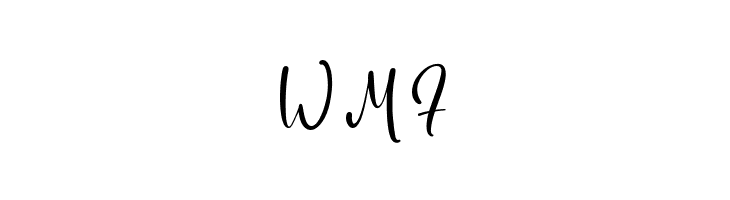
• Adonay
A modern, geometric font with clean lines and a futuristic aesthetic.
• Adonay
A modern, geometric font with clean lines and rounded edges.
• Adonessia Demo
An elegant, flowing script font with intricate loops and high contrast.
• Adonis-Bold
A bold, angular font with geometric shapes and a dynamic style.
• AdonisGreekSquares
A bold, geometric font with Greek-inspired, angular characters enclosed in squares.
• Adopted Regular
A bold, three-dimensional font with a gradient fill and sharp edges.
• Adora Chalie Regular
A bold, playful handwritten font with smooth curves and a dynamic slant.
• Adora Queen Personal Use
An elegant script font with high contrast and ornate flourishes.
• Adorable
A playful, bold font with rounded characters and a whimsical style.
• Adorable Kids
A playful, bold font with a hand-drawn, whimsical style.
• Adorable Kids
A playful, bold, and hand-drawn font with a childlike charm.
• Adorable Margherita Script
A graceful and sophisticated script font with flowing, interconnected letters.
• Adorable Mumble
A playful, handwritten font with rounded, consistent strokes and a casual, friendly appearance.
• Adore
A modern, handwritten script font with smooth, connected strokes.
• Adore Cats
A playful, bold font with rounded, chunky letters and a whimsical touch.
• Adore You
A cursive, handwritten font with elegant curves and a decorative style.
• Adore64
A pixelated, monospaced font with a retro digital aesthetic.
• Adorefunny Free Regular
Playful handwritten font with a whimsical style.
• AdOrNaDa St
A decorative font with bold, outlined letters in textured circular backgrounds.
• Adornos Regular